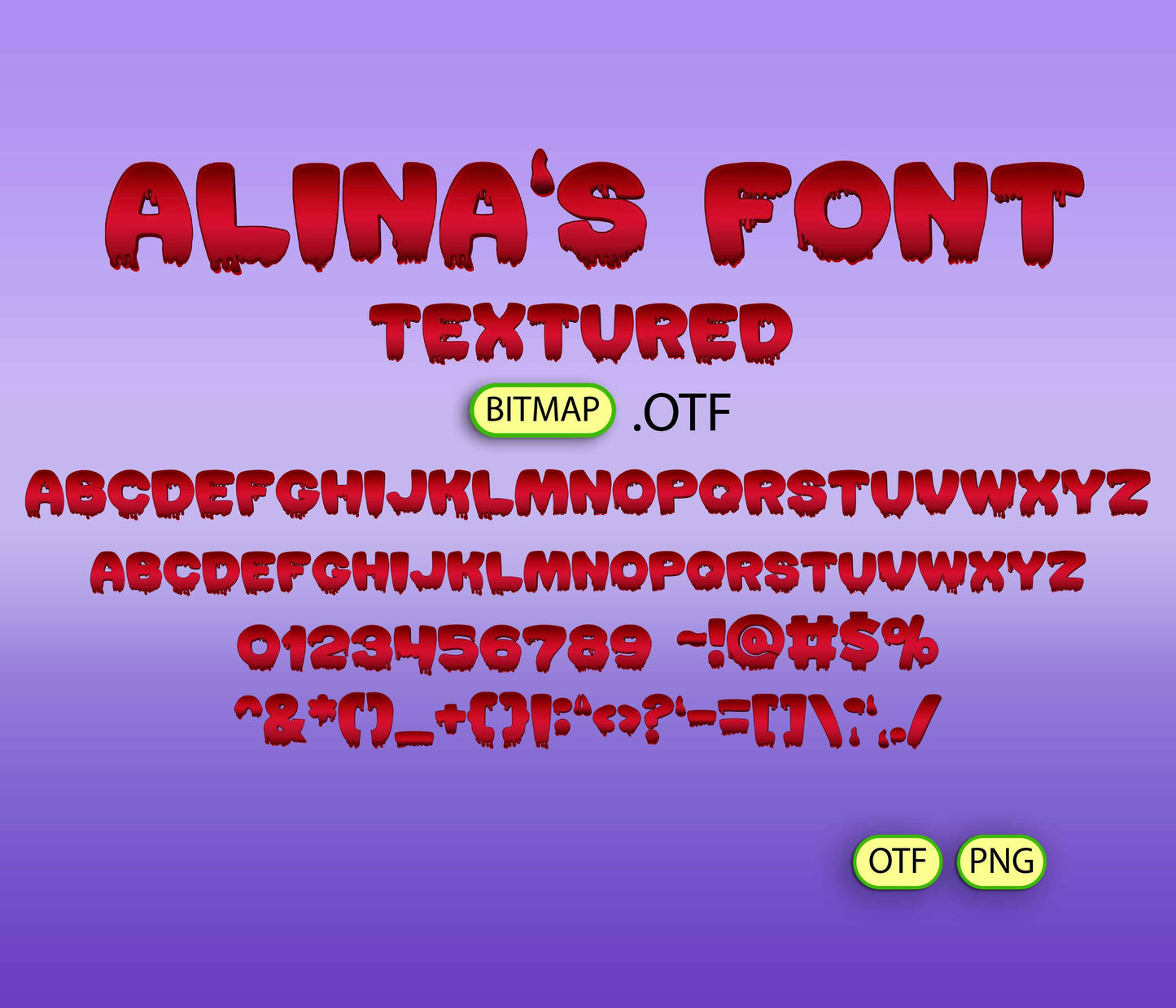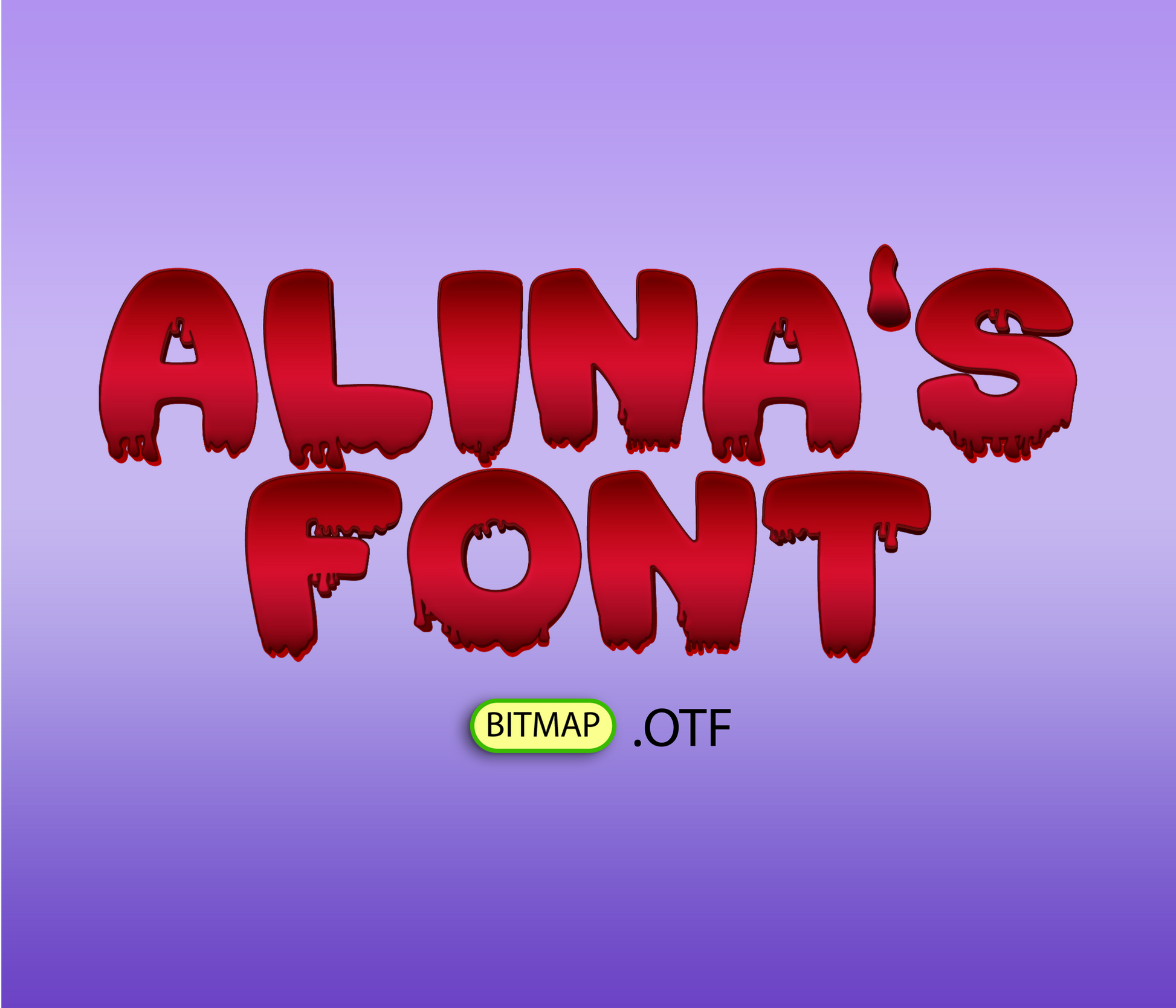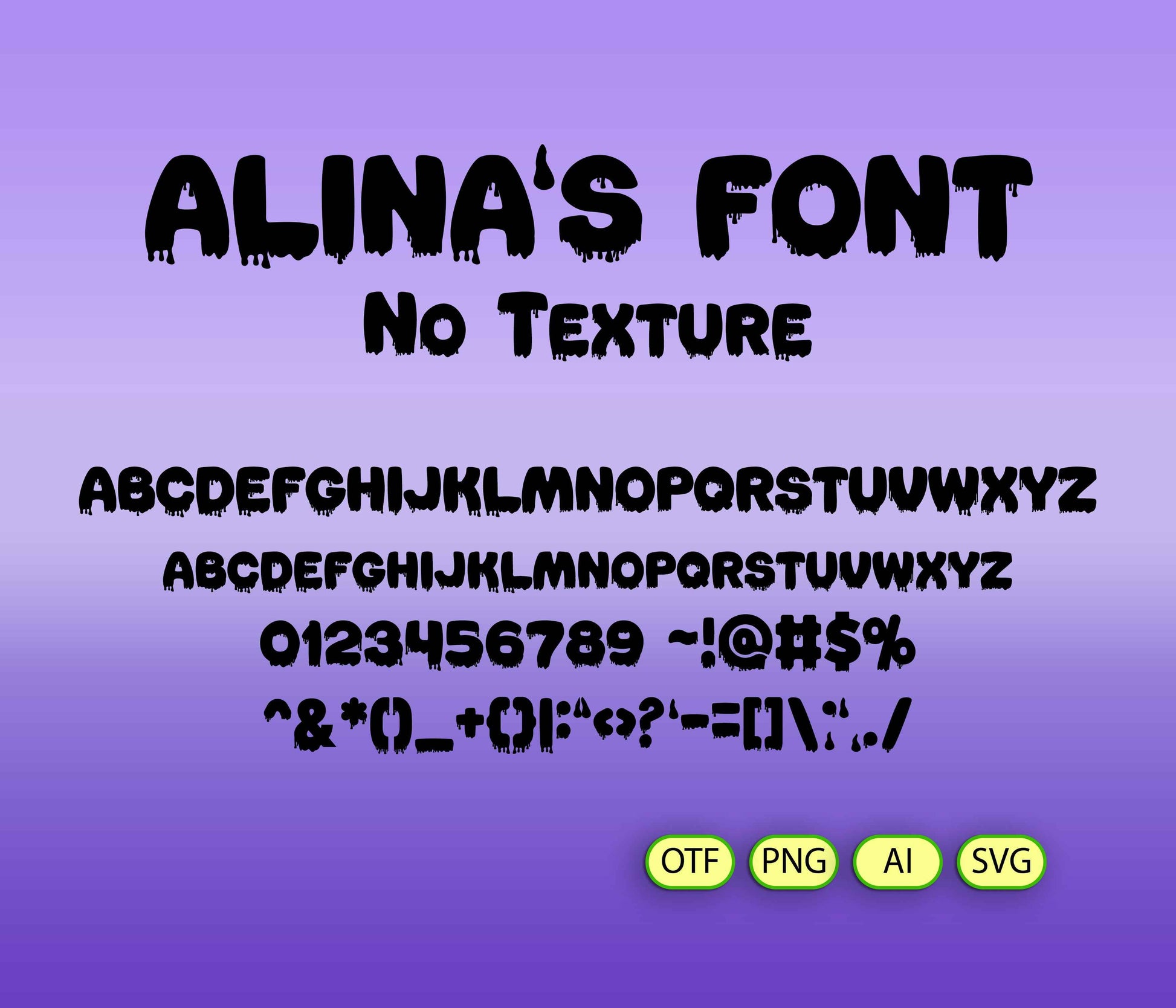
Halloween Slime Font Textured
Halloween Textured Fonts Bundle: The Spooky Allure of Halloween Pattern Font
Unleash the magic of Halloween with our Halloween Color Slime Fonts Bundle, a spectacular collection that encapsulates the vibrant and mystical essence of this beloved holiday. This bundle is a treasure trove of fonts, each one brimming with Halloween spirit, from eerie to whimsical. Imagine letters that dance with the colors of autumn, ghostly whites, pumpkin oranges, and witchy purples, each font in the bundle bringing its own unique flavor to your Halloween-themed projects.
What font is the Halloween Color Fonts?
Imagine a typeface that seamlessly blends the iconic symbols of Halloween with each letter. Our font is crafted to incorporate Halloween motifs into the very structure of the characters, making each letter a celebration of the holiday. It includes a comprehensive character set, covering alphabets, numbers, and special symbols, ensuring you have everything needed for your Halloween-themed projects. The font is designed to be as versatile as it is visually striking, perfect for a wide range of applications.
What Can You Do With Halloween Color Fonts?
The Halloween Pattern font is versatile and perfect for a variety of spooky and fun applications:
- Halloween Party Invitations: Create unique invitations that set the tone for your Halloween festivities.
- Seasonal Marketing and Promotions: Enhance promotional materials for Halloween sales and events.
- Themed Decorations: Design decorations and signage for haunted houses, parties, and events.
- Custom Apparel: Create Halloween-themed clothing and accessories for costume parties or casual wear.
- Social Media Content: Add a spooky touch to your posts and graphics for Halloween.
- Digital Art and Illustrations: Ideal for digital artists creating Halloween-themed artwork.
- Event Signage: Craft eye-catching signs for Halloween events, festivals, and gatherings.
- Educational Materials: Use in classroom resources for Halloween-themed lessons and activities.
- Personalized Stationery: Create stationery sets with a fun, spooky theme.
- Creative Projects: Perfect for scrapbooking, crafting, and DIY projects with a Halloween motif.
- Textured and FREE Non-Textured Variants: Choose between a version with Halloween-themed textures or a clean, non-textured version for broader application.
- Extensive Character Set: Offers a wide range of characters for comprehensive design possibilities.
The Halloween Color Fonts Bundle is not just a collection of typefaces; it's a festival of fonts that celebrates the spooky, playful, and colorful spirit of Halloween.